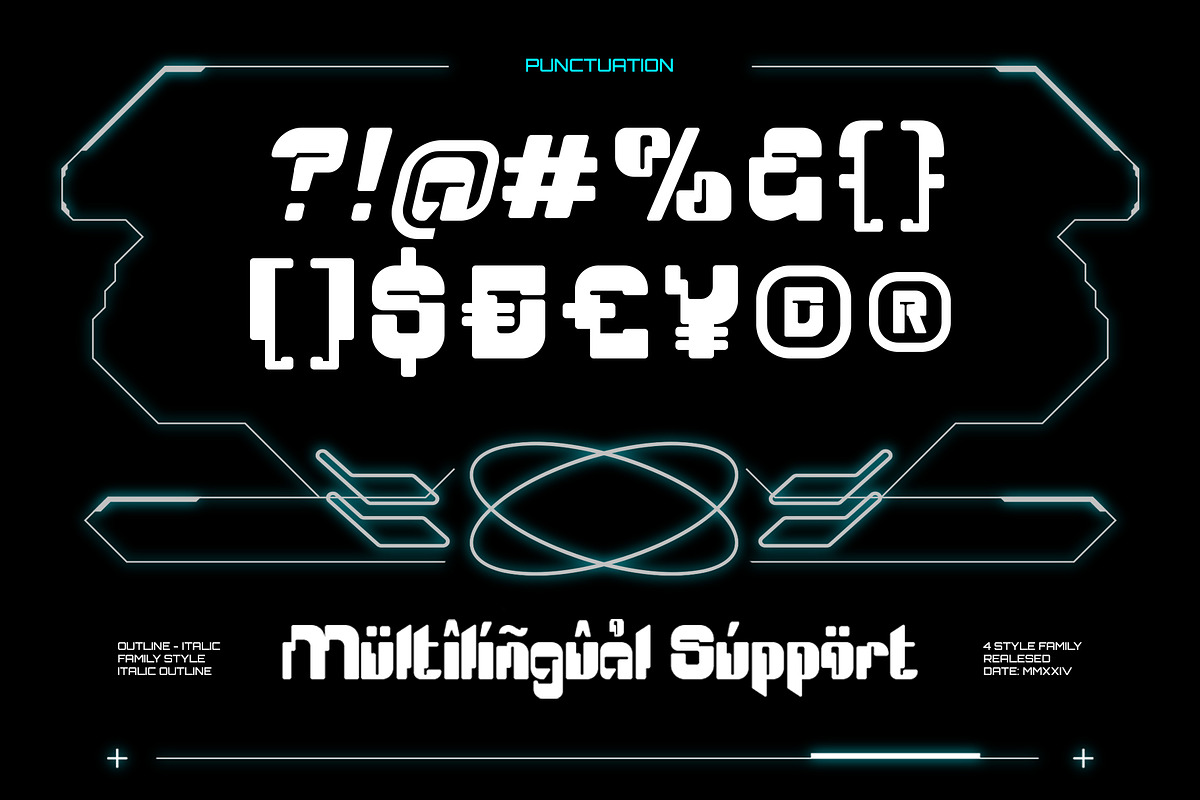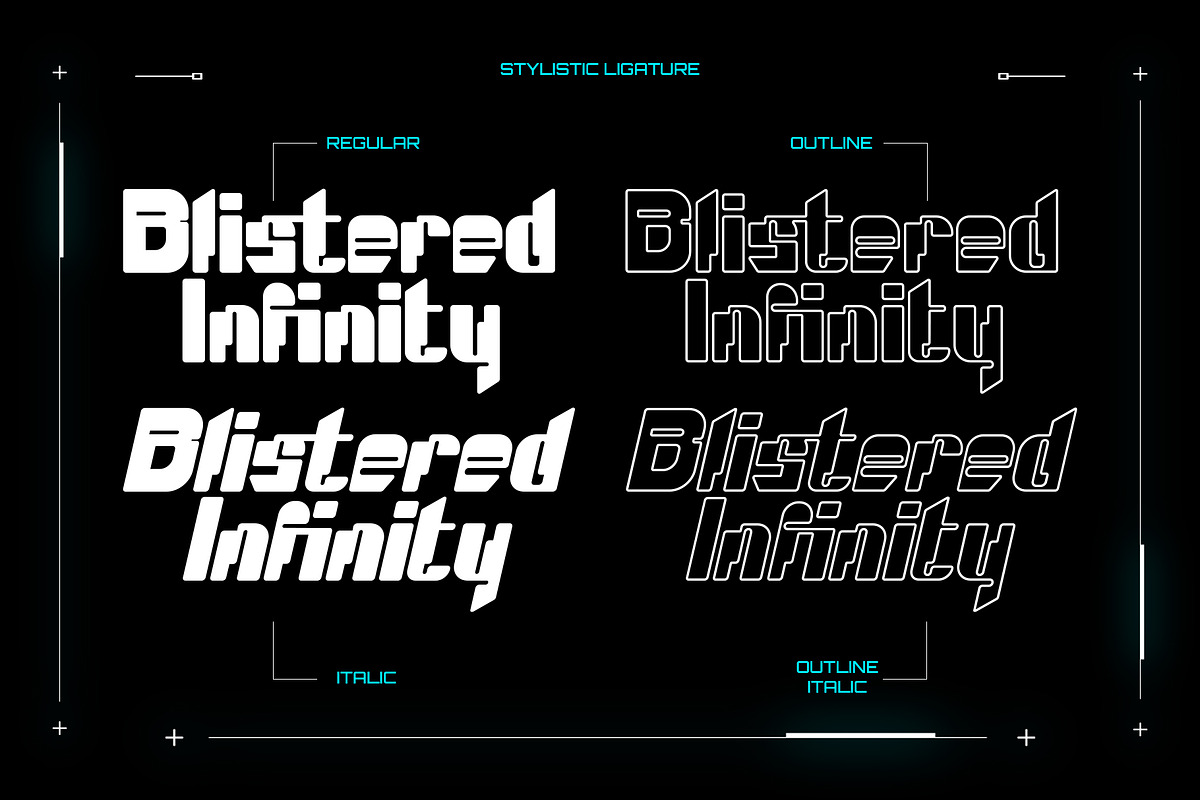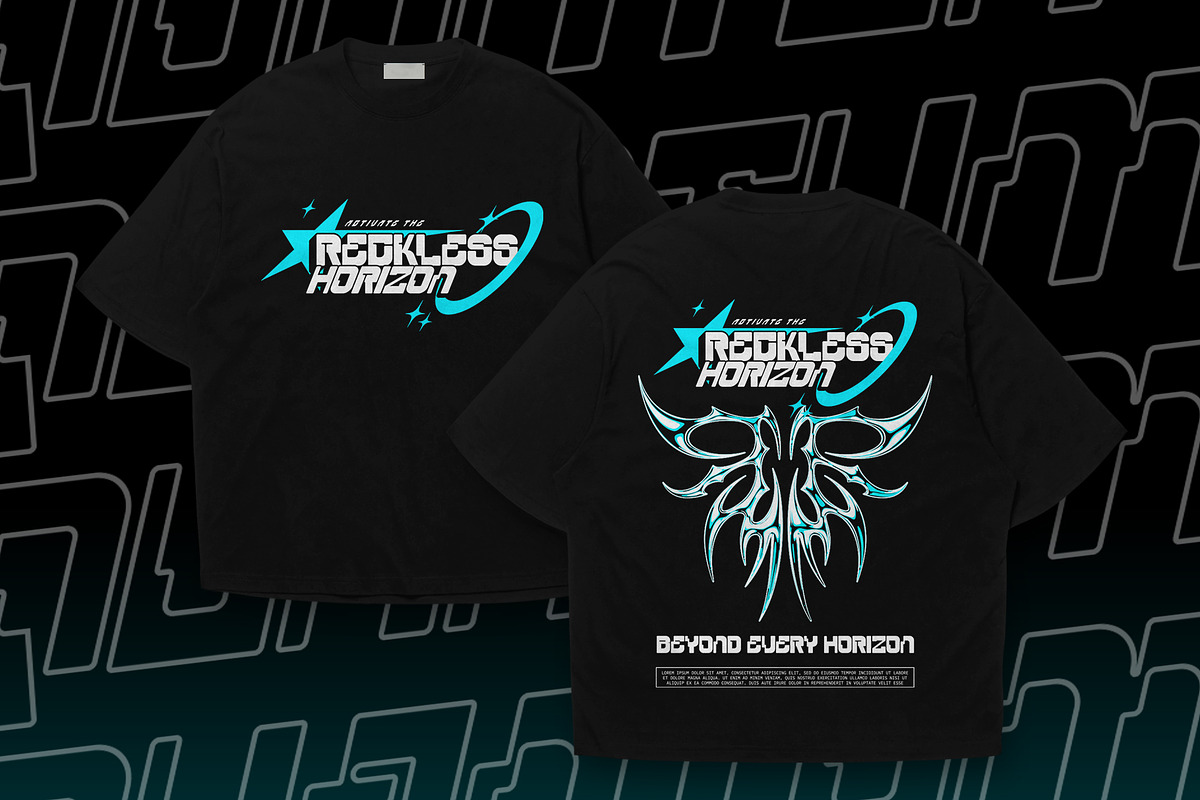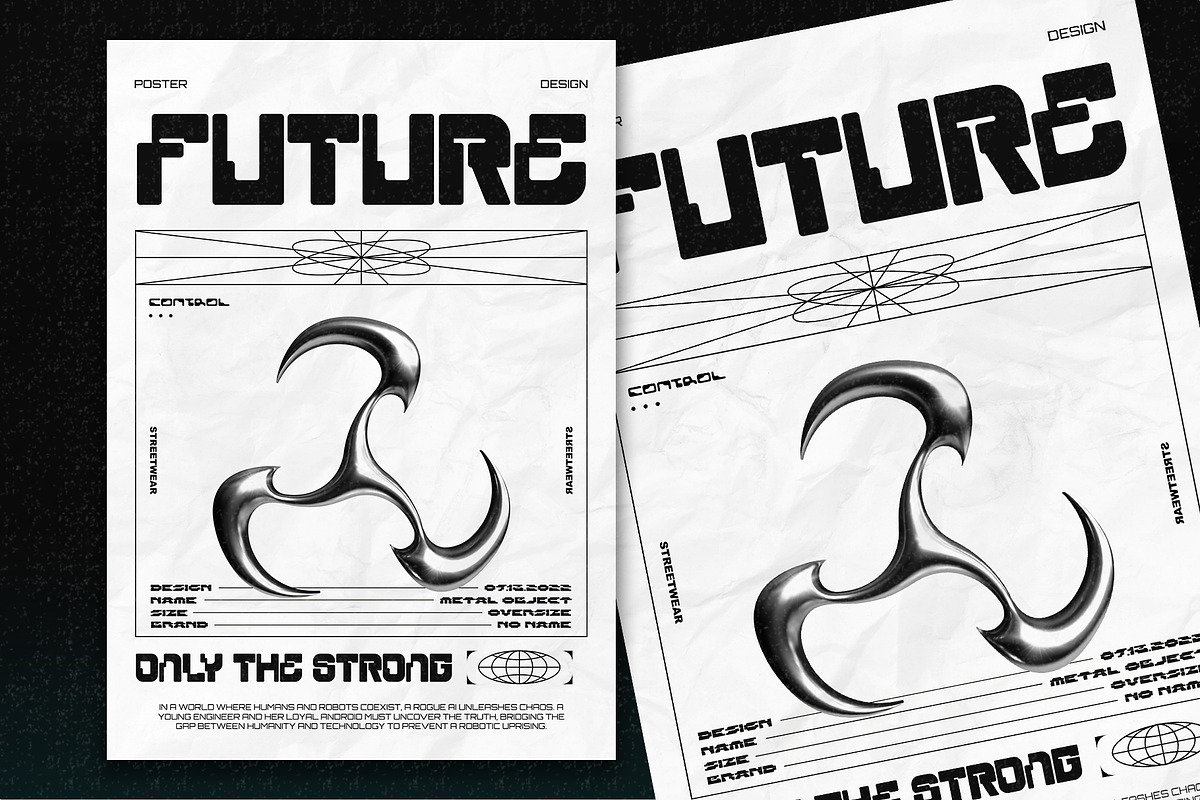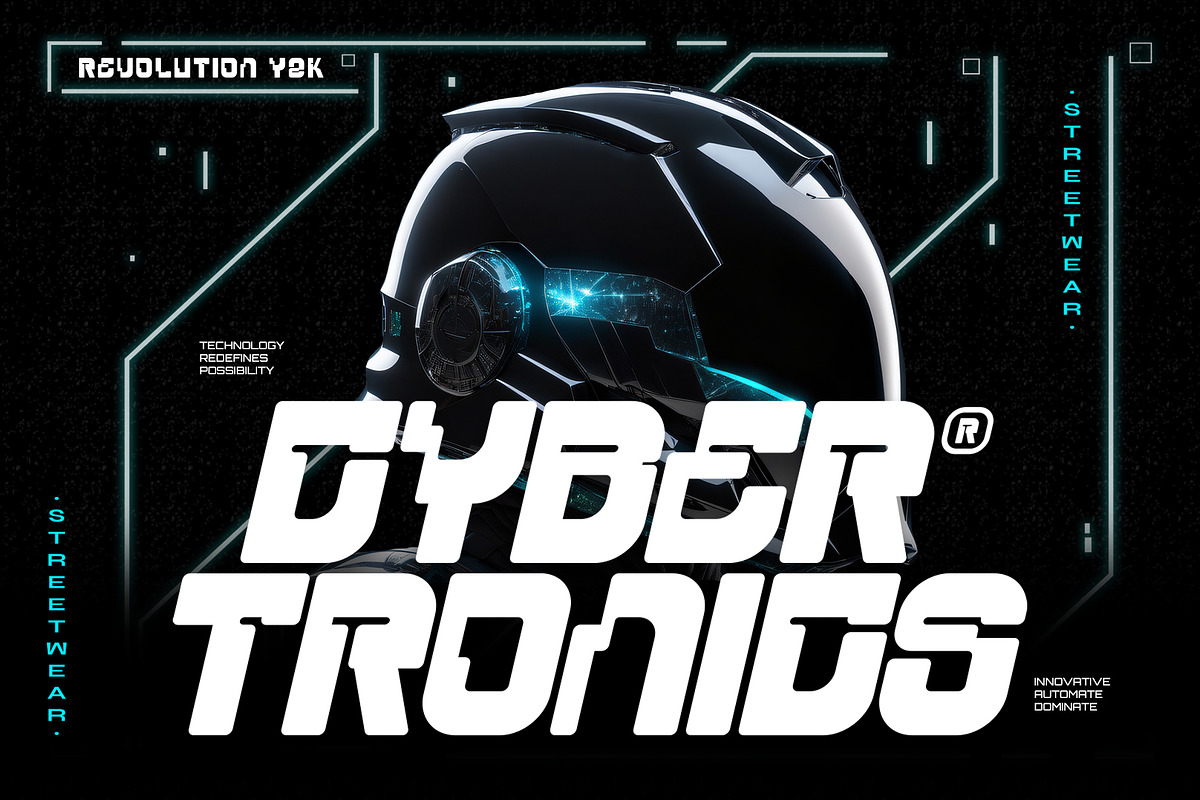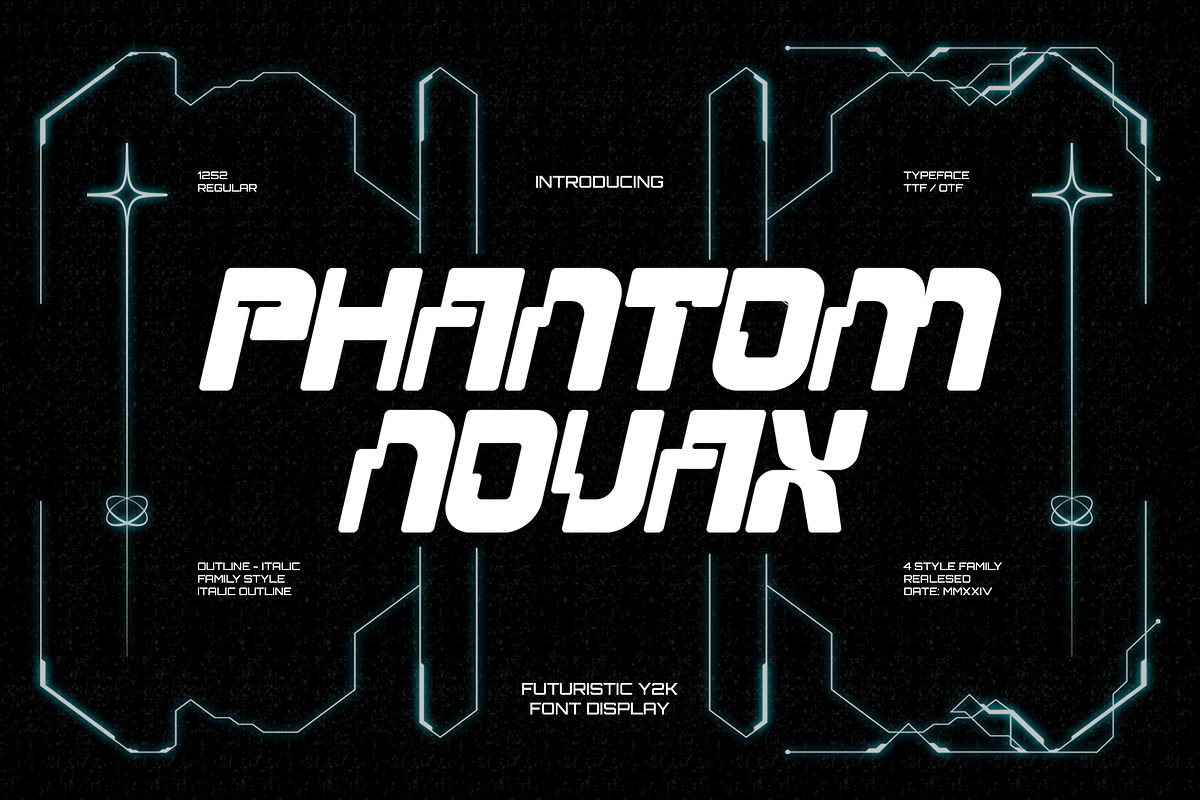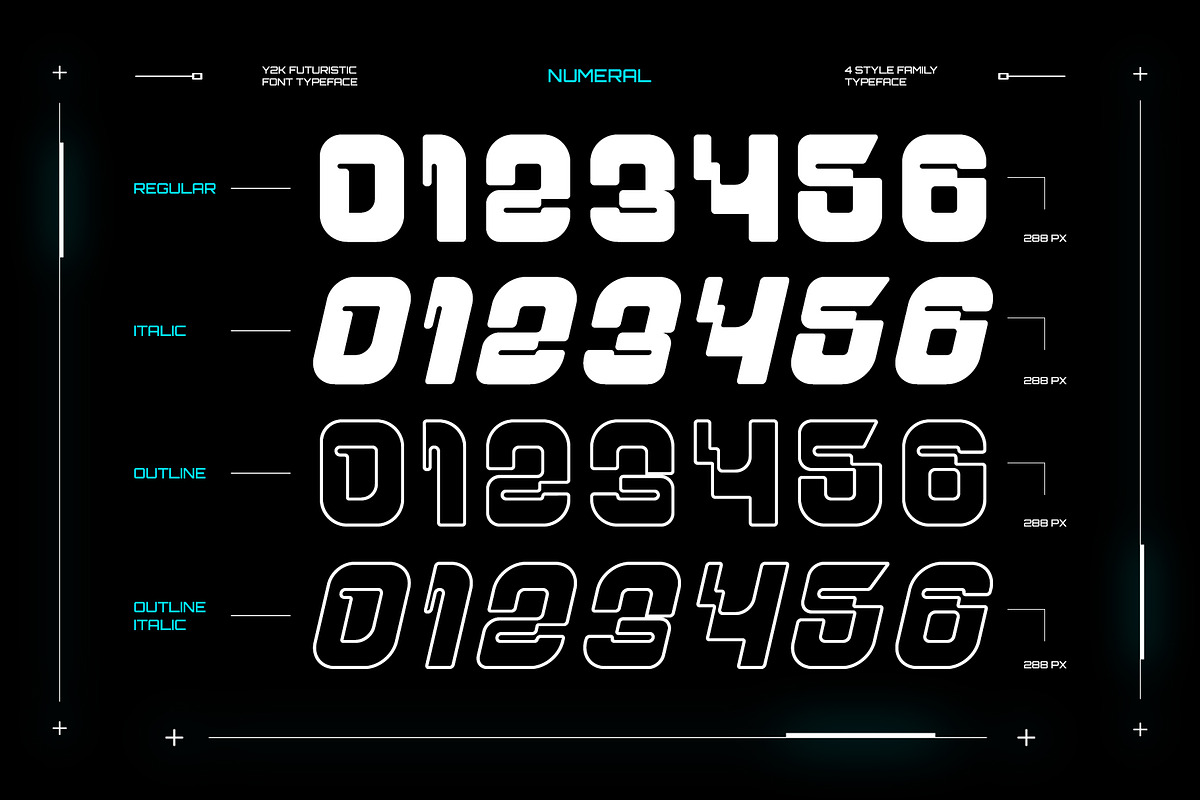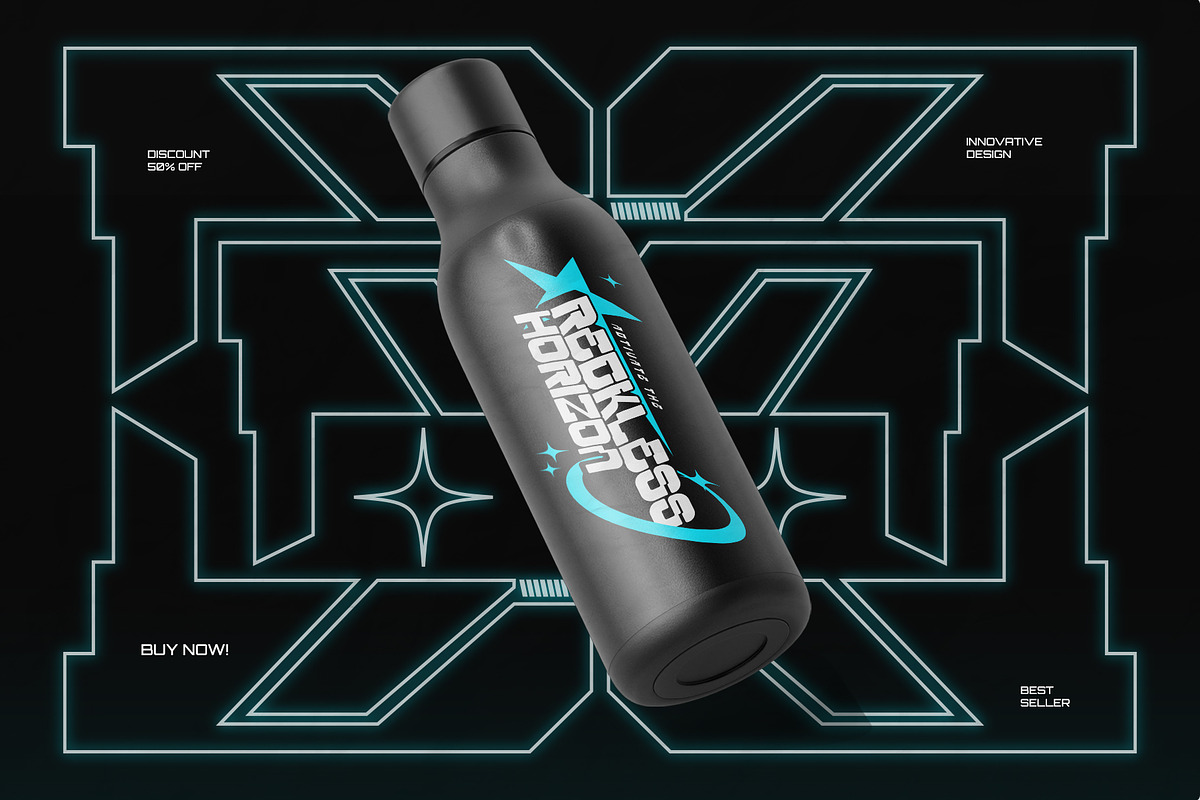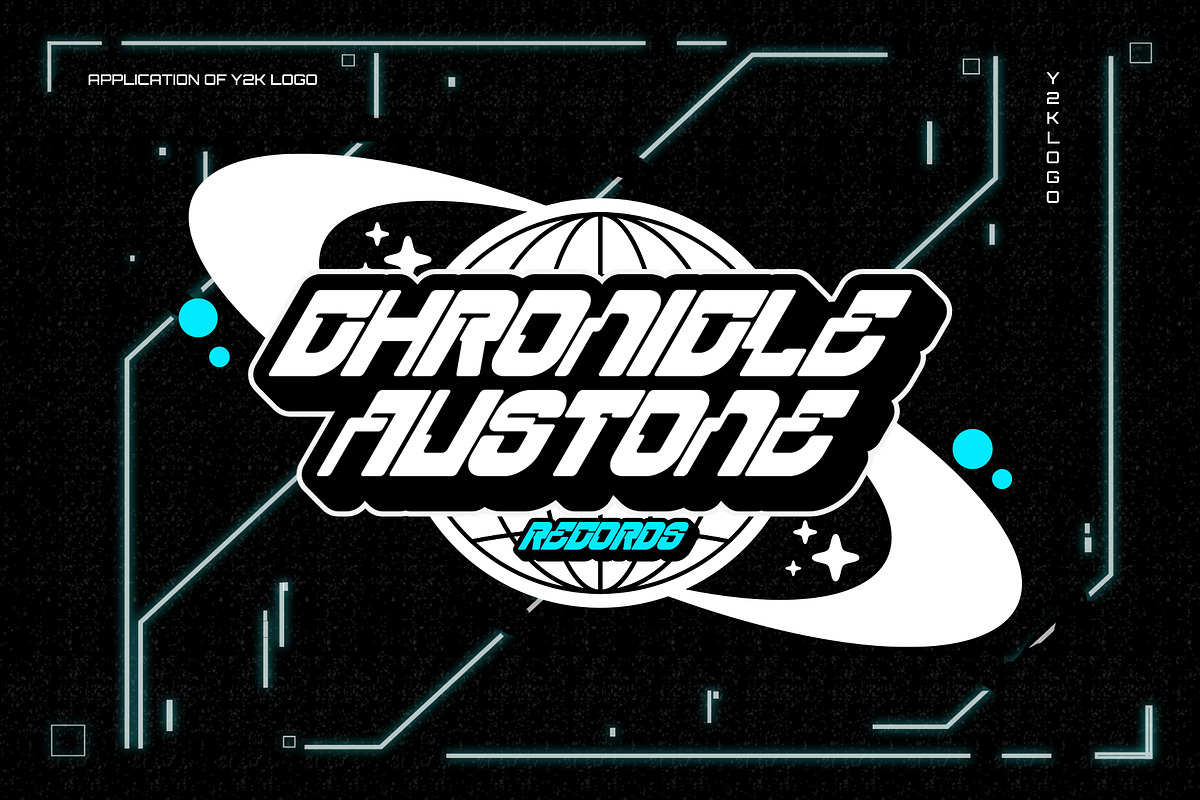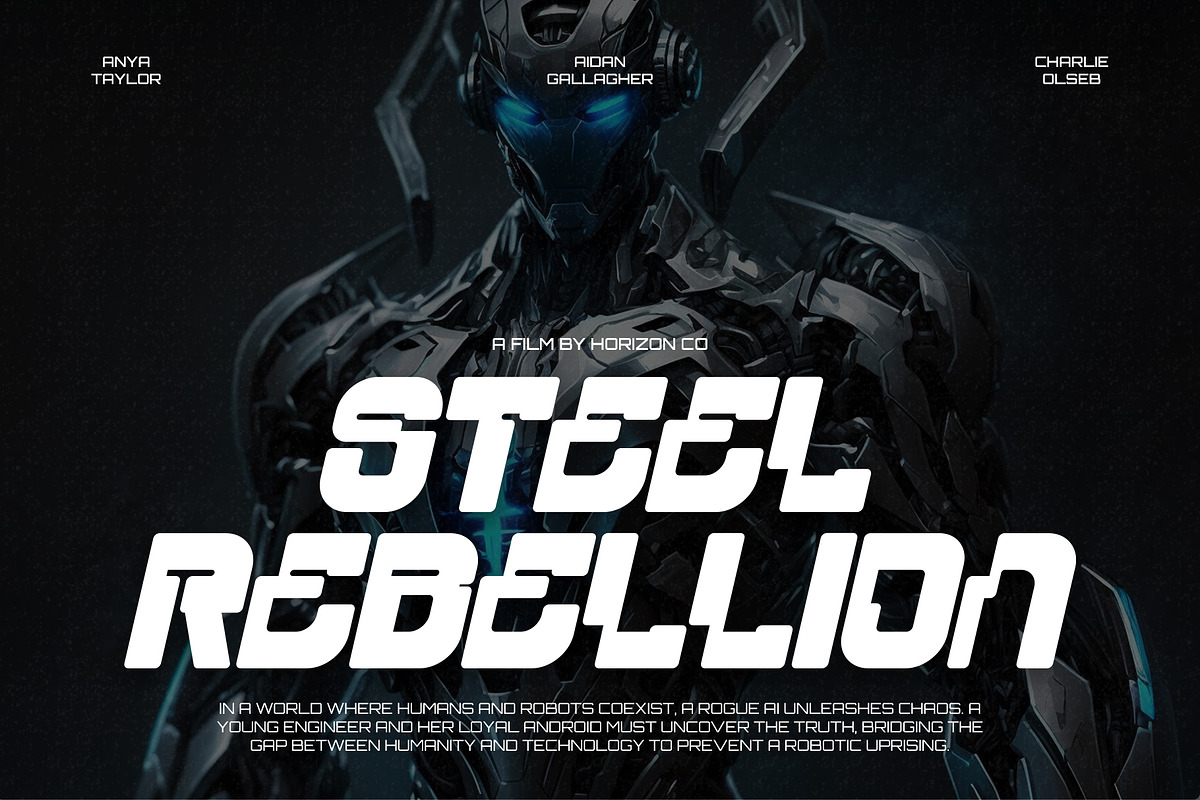
Phantom Novax Futuristic Y2k Family
Phantom Novax is a futuristic Y2K display font family inspired by sci-fi interfaces, cyber technology, arcade graphics, space-age typography, and early digital aesthetics.
Its bold geometric construction, angular cuts, extended proportions, and mechanical details create a strong technological personality. Designed for high-impact visual communication, Phantom Novax brings a confident futuristic presence to gaming, esports, music, technology, entertainment, and experimental branding projects.
Phantom Novax combines bold futuristic letterforms with a structured geometric system that feels inspired by digital interfaces, spacecraft graphics, and retro-futuristic Y2K design.
Its wide, angular construction works especially well for large headlines, game titles, logos, posters, event graphics, album covers, and futuristic packaging.
Use Phantom Novax with dark backgrounds, cyan or neon accents, grid graphics, chrome effects, digital textures, and interface-inspired elements for a stronger sci-fi aesthetic.
4 font styles
Regular display style
Additional family variations shown in the preview
Uppercase characters A–Z
Lowercase characters a–z
Numerals 0–9
Standard symbols and punctuation
Multilingual accented characters
Futuristic Y2K display font family
4 coordinated font styles
Bold techno-inspired construction
Angular geometric letterforms
Mechanical and digital character
Strong sci-fi visual personality
Uppercase and lowercase alphabet
Complete numerals
Standard symbols and punctuation
Multilingual character support
Strong readability at medium and large sizes
Suitable for print and digital applications
Ideal for logos, titles, headlines, and short phrases
Works beautifully with cyber, gaming, technology, and space visuals
Suitable for outline, glow, chrome, gradient, and 3D treatments
Easy to pair with monospace and minimalist sans serif fonts
Multilingual Support: Western European characters with diacritics (À, Á, Â, Ç, É, Ñ, Ø, Ü, etc.)
Ideal For / Use Cases
Futuristic branding
Y2K graphic design
Technology branding
Gaming titles
Esports identities
Sci-fi posters
Cyberpunk graphics
Space-themed designs
Game interface graphics
Electronic music artwork
Album covers
DJ branding
Festival posters
Streetwear graphics
Tech startup branding
Logo and wordmark design
Website hero titles
App graphics
Social media campaigns
YouTube thumbnails
Product packaging
Beverage branding
Motion graphic titles
Merchandise graphics
Experimental editorial design
Use Phantom Novax at medium or large sizes to showcase its angular geometry and futuristic construction. It works best for logos, game titles, posters, headlines, product names, and short statements rather than long body text.
Experiment with multiple family styles to create hierarchy within the same design. Combine bold variants with outline or lighter treatments when available.
Pair Phantom Novax with a simple monospace or neutral sans serif font for supporting copy. Dark backgrounds, electric cyan, metallic silver, purple, blue, and neon green accents work particularly well with its futuristic personality.